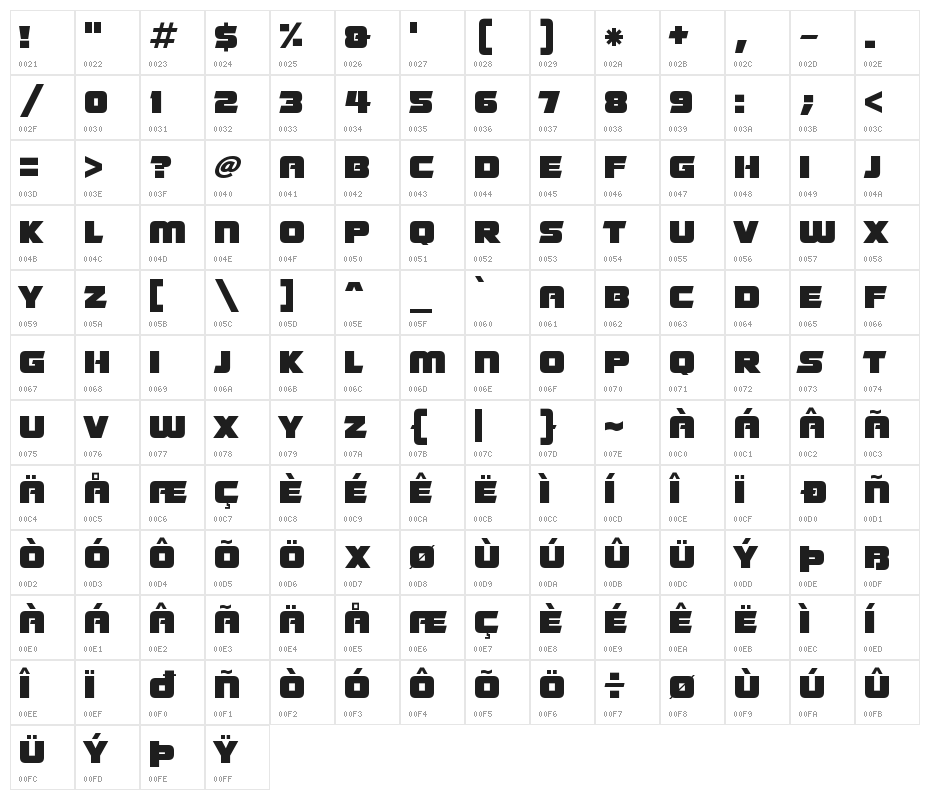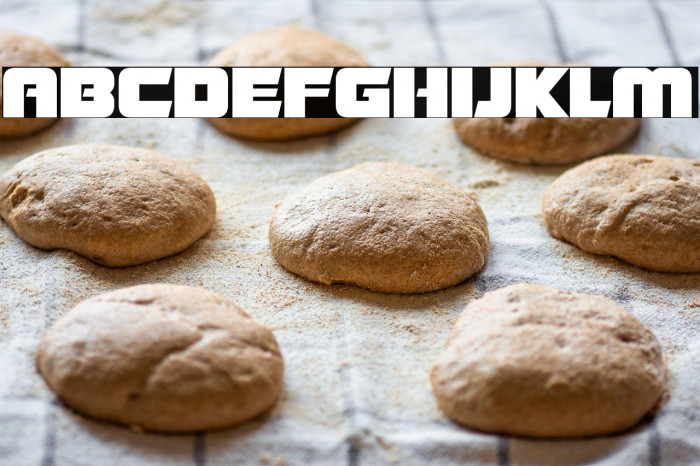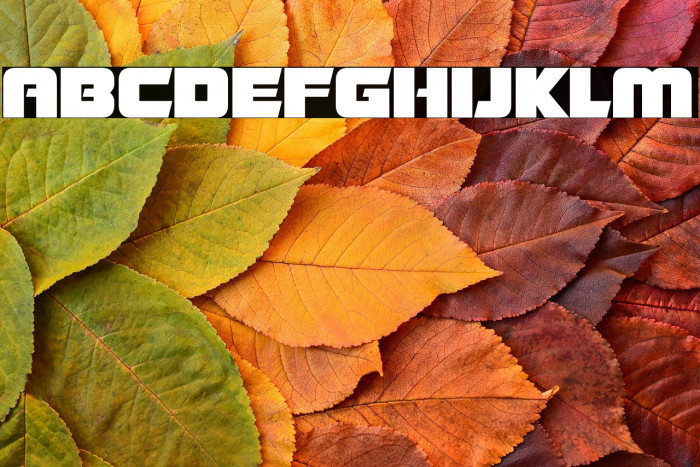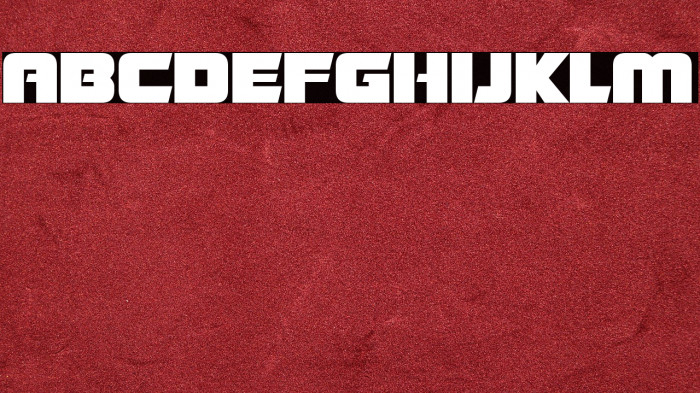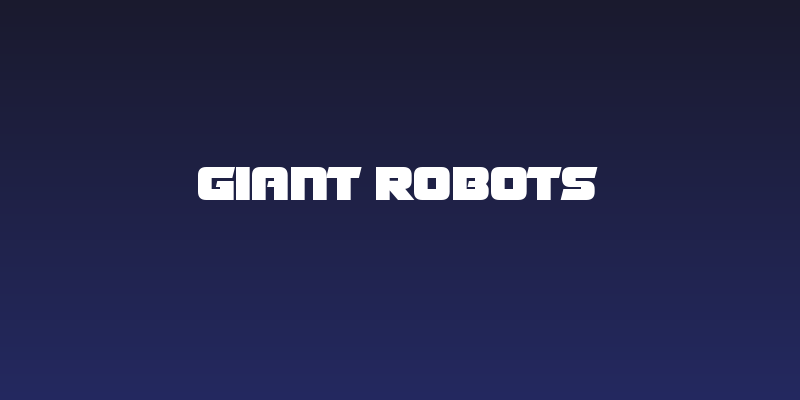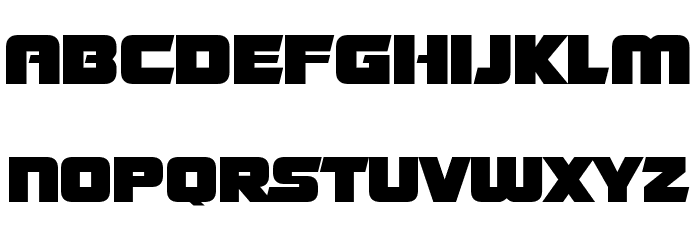
Giant Robots Font
Giant Robots Description
This bold and futuristic font features a strong geometric design with sharp angles and a blocky appearance. The uppercase letters are uniform in height, creating a cohesive and powerful look. The numbers and special characters maintain the same boldness, ensuring consistency across all characters. The font's design is reminiscent of modern technology and robotics, making it ideal for projects that require a contemporary and edgy aesthetic. Its thick strokes and minimal spacing between characters give it a compact and impactful presence.
| Proposed Projects | Ideal for tech-related branding, video game titles, sci-fi movie posters, and futuristic product packaging. |